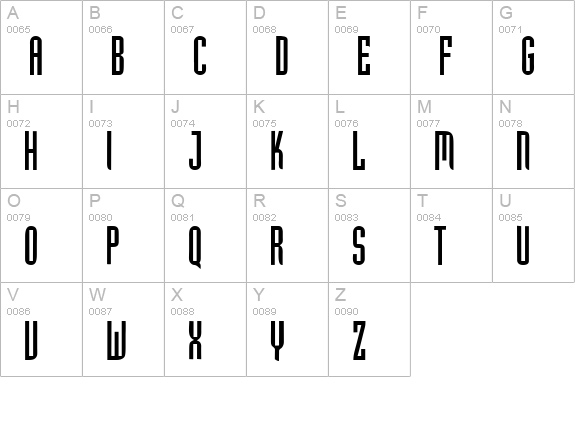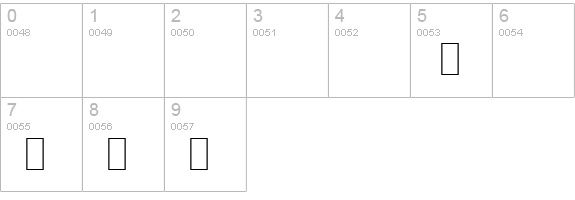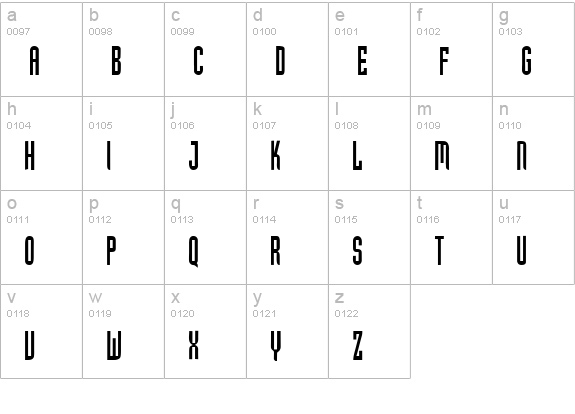
GF Hubert Caps Font Details
GF Hubert Caps is a striking and versatile display font that exudes elegance and sophistication. With its clean lines and bold letterforms, this typeface is perfect for adding a touch of modernity to any design project. Whether you're creating a logo, heading, poster, or branding materials, GF Hubert Caps will make a powerful statement. What sets GF Hubert Caps apart is not only its stunning design but also the fact that it is available for free download. That's right, you can get your hands on this exceptional font at no cost on FontsMarket.com. So why wait? Elevate your designs with GF Hubert Caps today and make a lasting impression.